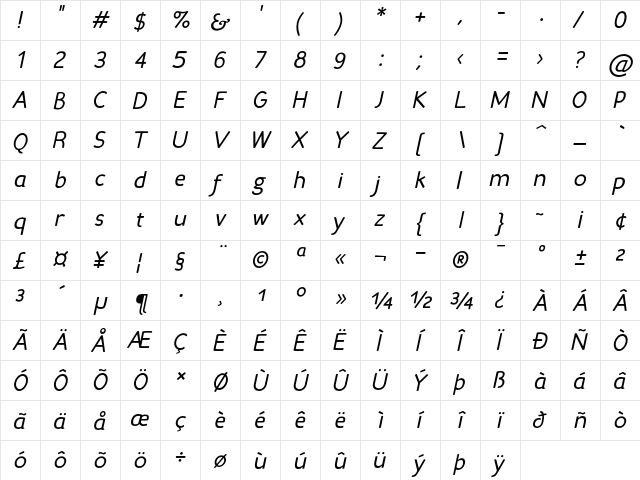
Candela Book Italic
| Foundry | La Tipomatika |
| Designer | La Tipomatika |
Design Context for Candela Typeface
Candela offers clean, dependable letterforms without strong stylistic allegiance, making it a practical choice for designers who need flexibility. The slanted form adds forward momentum and visual energy.
Pro Tip: Use Candela for emphasis, pull quotes, and subheadings where its slanted energy can add rhythm to the layout.